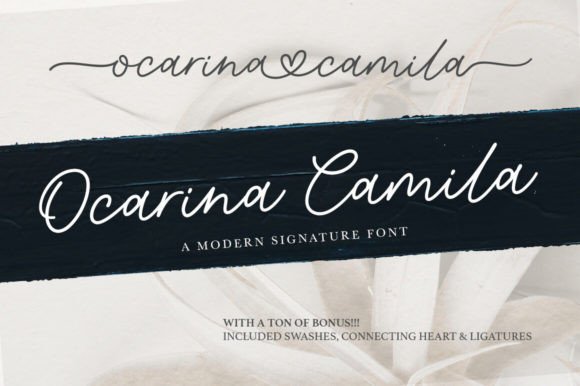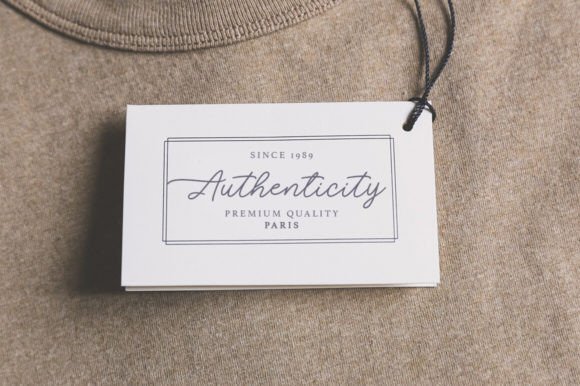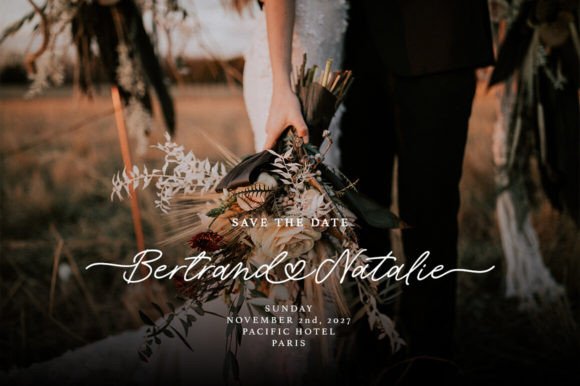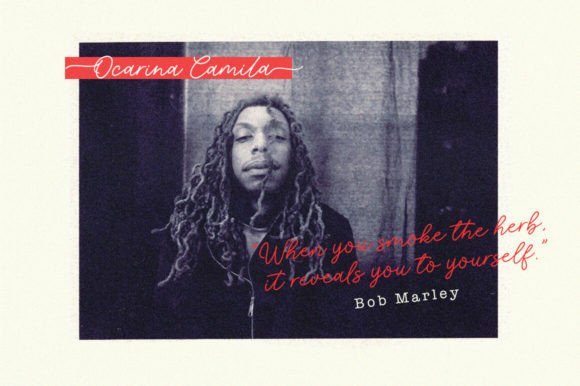
Ocarina Camila Font: Elegant Script for Signature Logos & Wedding Design
About the Ocarina Camila Font
Meet Ocarina Camila Font, a stunning font that brings a touch of elegance and professionalism to any design. Introducing the new Ocarina Camila script font – A beautiful and super-chilled new handwriting font script with some sexy swashes, connecting hearts, and stylish ligatures. Can be used for various purposes. such as headings, signatures, logos, wedding invitations, t-shirts, letterheads, signage, labels, news, posters, badges etc.
Ocarina Camila’s relaxed, yet elegant style shines in headlines, branding projects requiring a touch of personality, and on packaging for premium products. It works exceptionally well for short, impactful text like invitations, logos, and signage where its swashes and ligatures add a distinctive flair. However, its script nature makes it less suitable for body text or UI elements where readability is paramount. Avoid using it for long paragraphs or in small sizes.
Pair Ocarina Camila with a clean sans-serif like Montserrat or Lato for a modern, balanced look, or a classic serif like Playfair Display for a more traditional feel. For a playful contrast, consider pairing it with a geometric sans-serif such as Futura. These pairings will provide visual contrast and enhance readability without overwhelming Ocarina Camila’s inherent charm.
The font projects a sophisticated yet approachable personality; it’s friendly and inviting without sacrificing elegance. Brands targeting a discerning yet playful audience – think artisanal food, boutique hotels, or high-end stationery – would find this font particularly effective.
Ocarina Camila Font Usage Examples
Ocarina Camila Font Example